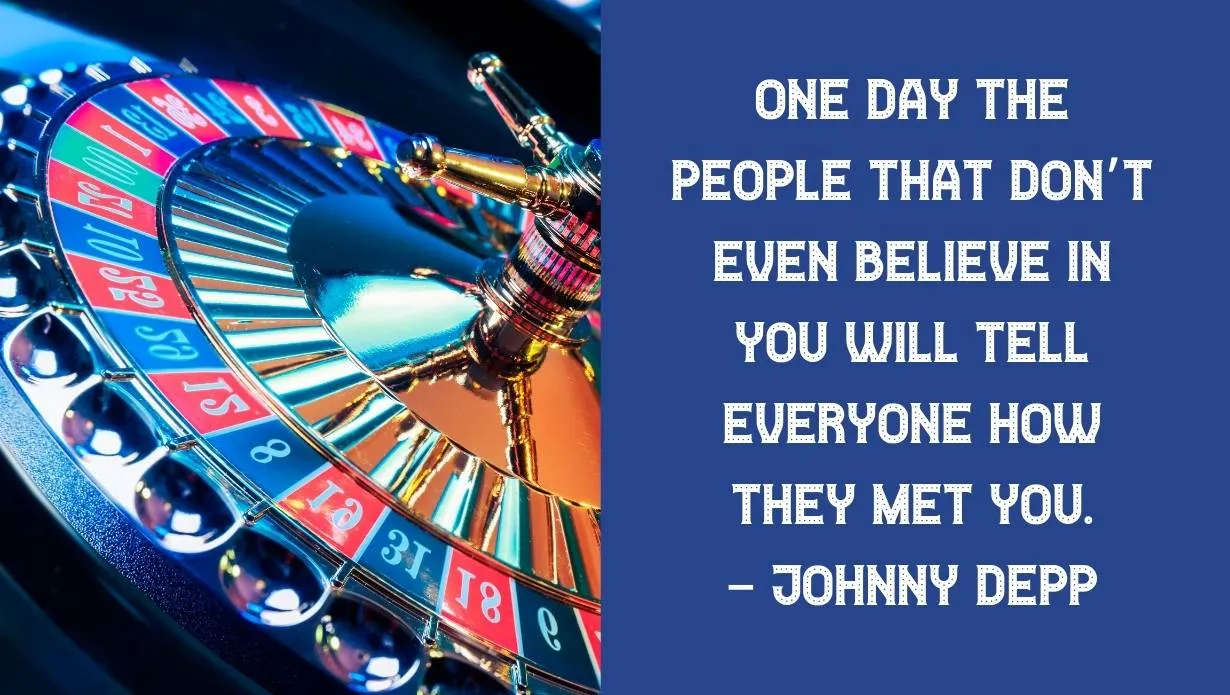
Today, We are delivering the most luxurious and attractive font that has a clear texture and appearance named Casino Font.
This typeface designer is Vladimir Nikolic and they took the charge of creating and publishing it for the first time. The release year of this unique typeface is 2018.